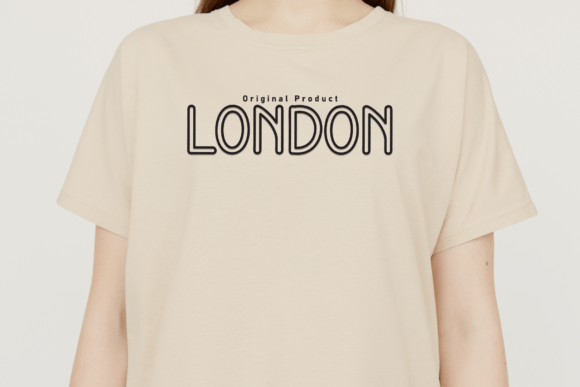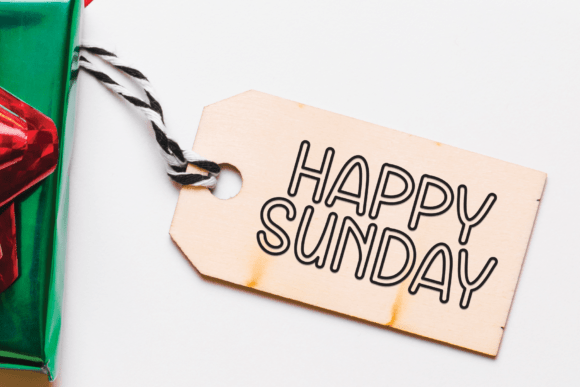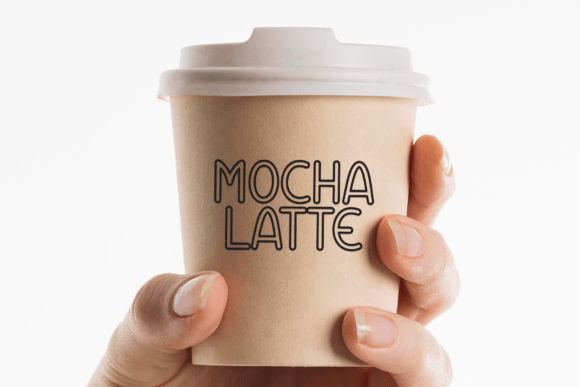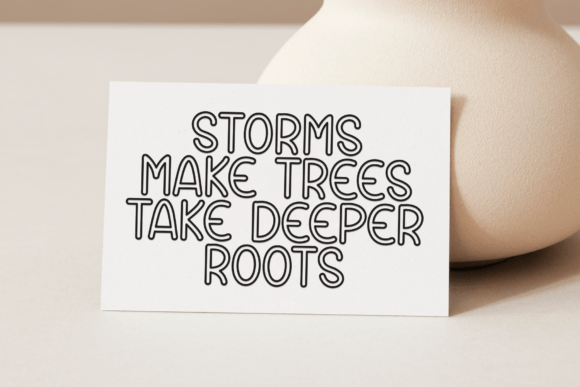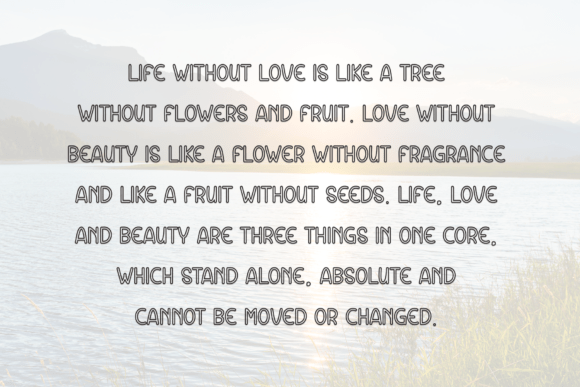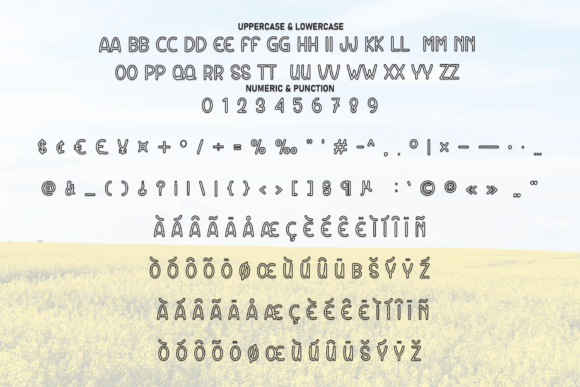
Introduction to Baby Disney Font
Baby Disney is a cute and creative display font inspired by playful outlines and childhood whimsy.
With rounded letterforms and a cartoon vibe, itโs ideal for childrenโs books, birthday invites, toys, and Disney-inspired crafts .
Key Features of Baby Disney Font
Why Choose Baby Disney Font?